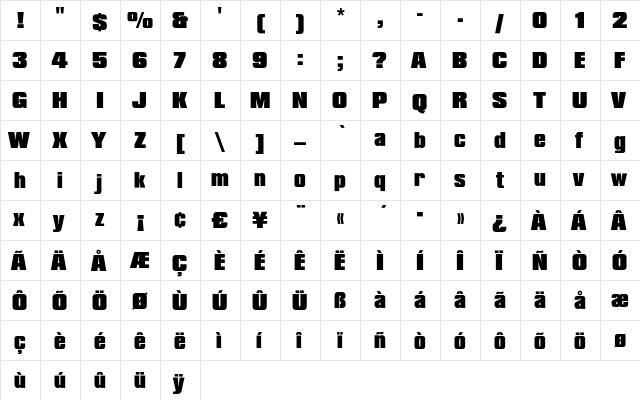
CompactaEF Black
Design Context for CompactaEF Typeface
CompactaEF takes a measured approach to typography — its balanced proportions and neutral character make it a reliable workhorse for both digital and print work. The condensed width makes it efficient for tight spaces without sacrificing legibility.